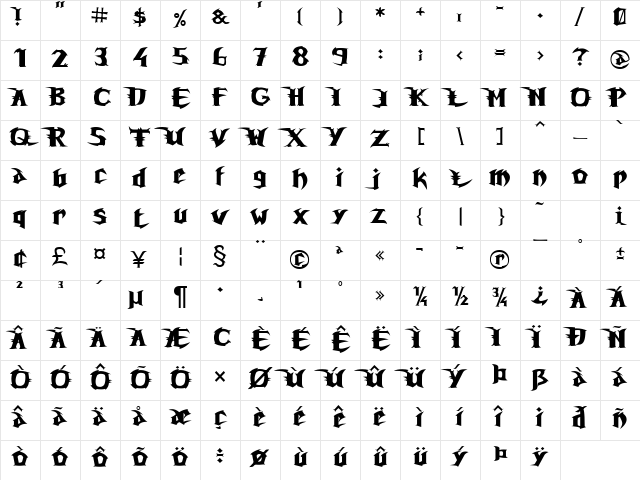
Unreal Tournament Regular
Design Context for Unreal Tournament
Unreal Tournament is a composed and adaptable typeface that performs quietly and consistently across a wide range of design contexts.